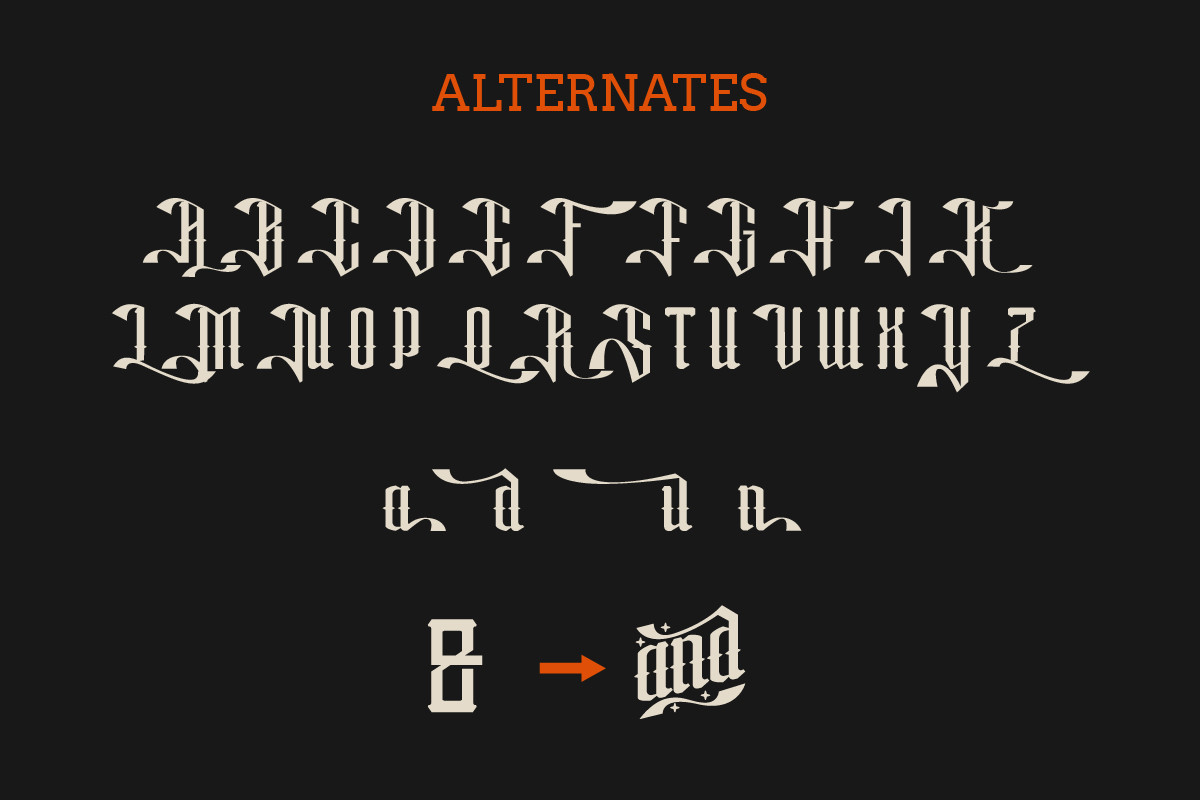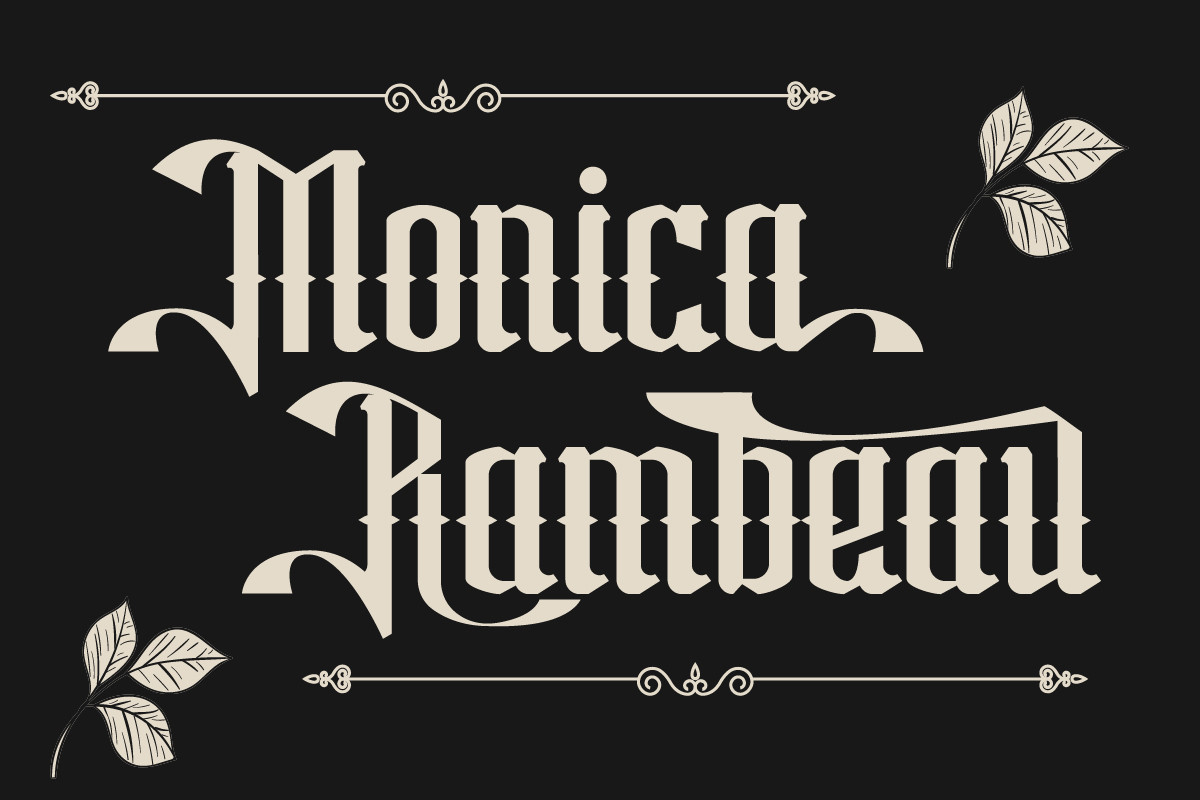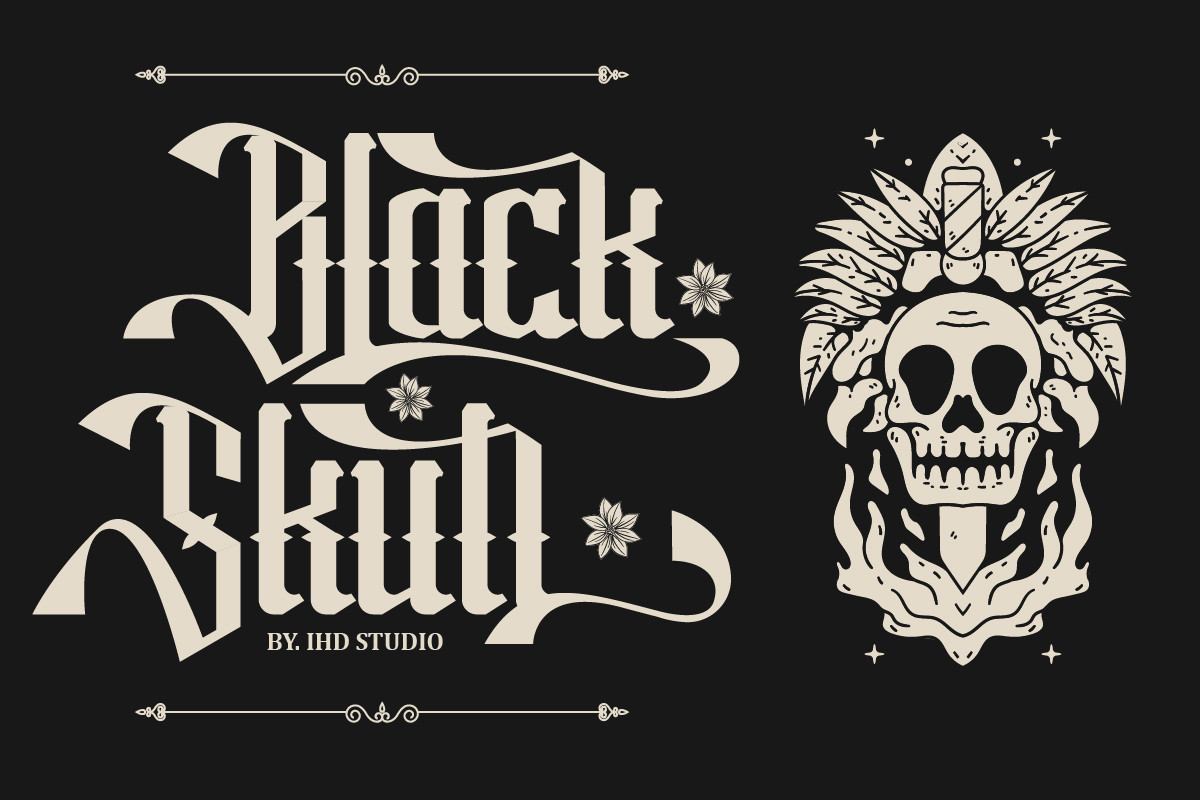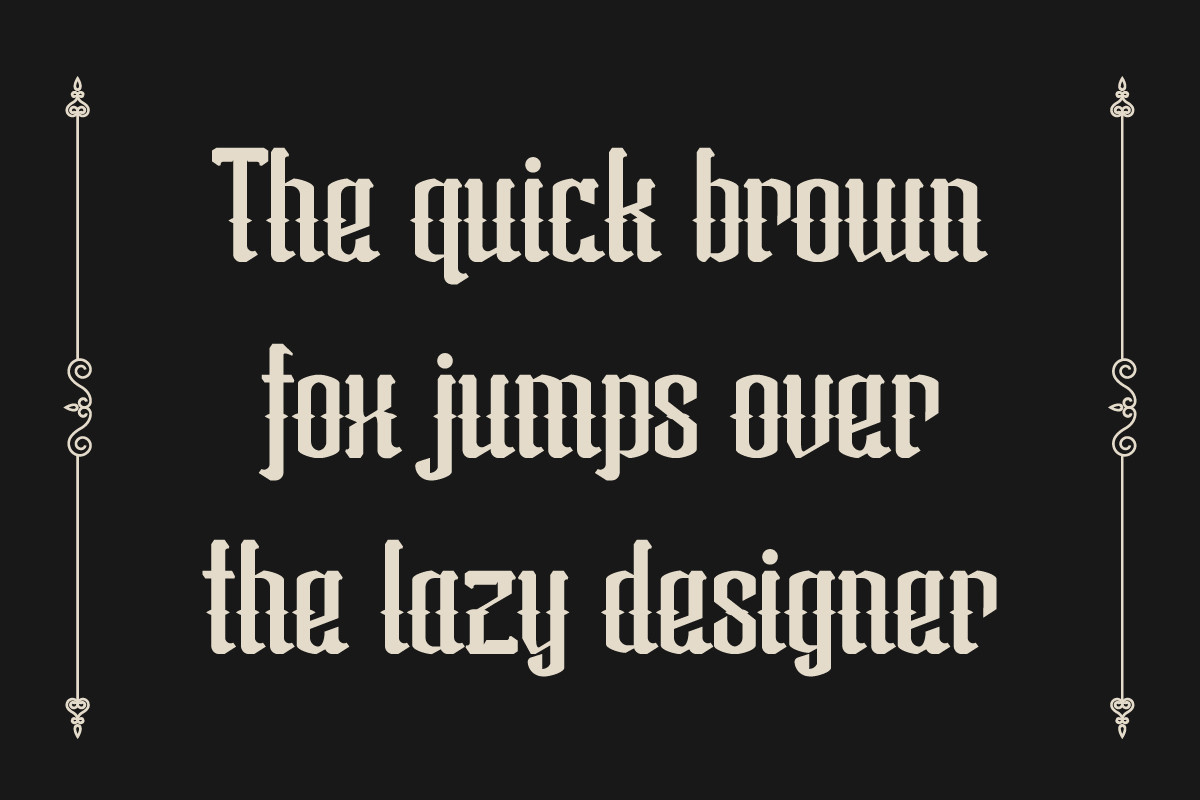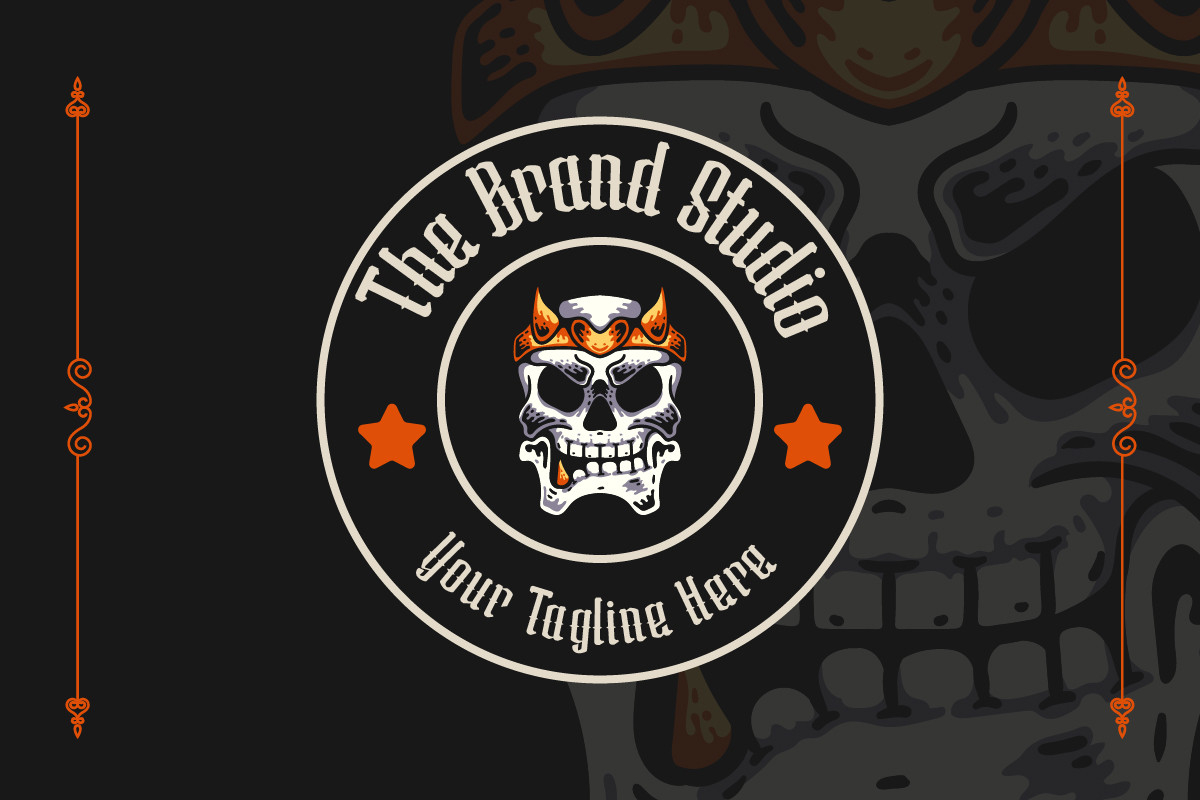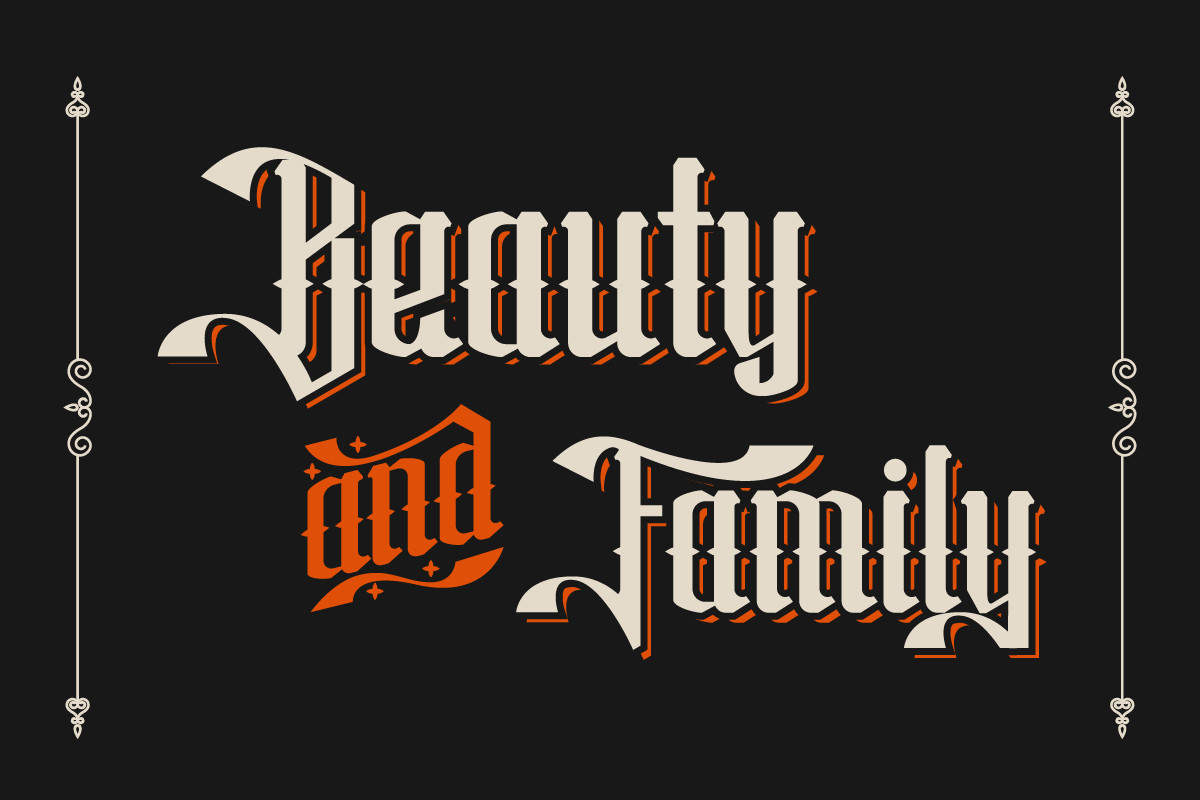
About Zenada Font
Zenada is a masterpiece of style and elegance. Its intricate and ornate design, with sharp and angular lines, is sure to catch the eye and make a statement. Whether you’re creating a vintage design or a modern project with an edge, this stunning font will add a touch of sophistication and power.